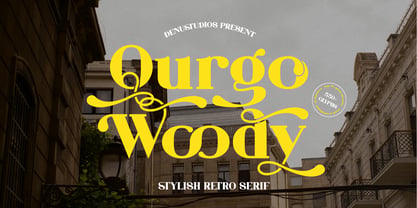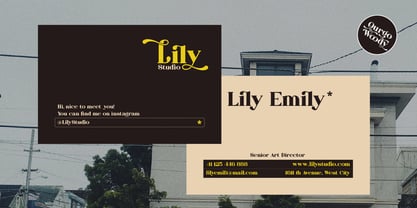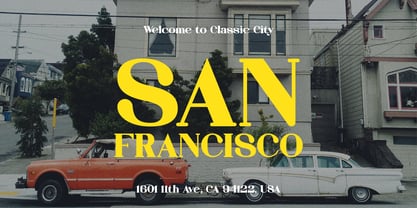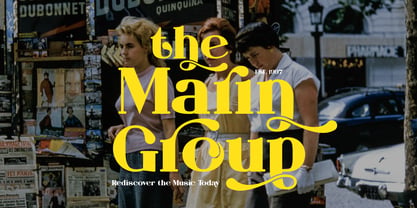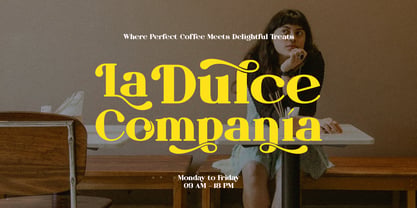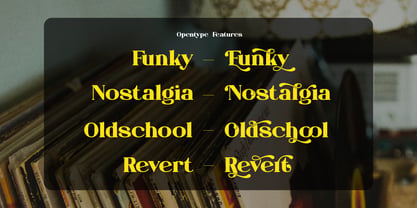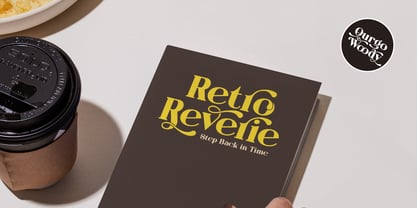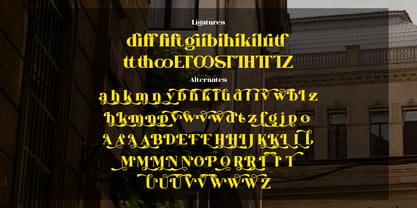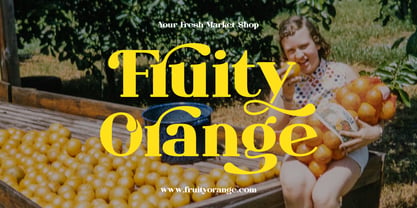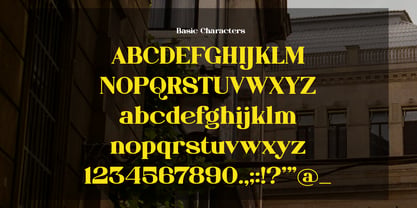
Qurgo Woody
by Denustudio
The Qurgo Woody Font Family was designed by Dede Nugraha and published by Denustudio. Qurgo Woody contains 2 styles and family package options. More about this family
Qurgo Woody | Stylish Retro Serif, from Denustudios, suitable for any projects such as: logos, branding projects, homeware designs, product packaging, mugs, quotes, posters, shopping bags, t-shirts, book covers, name card, invitation cards, greeting cards, label, photography, watermark, special events, and all your other lovely projects that need a Stylish Retro Serif taste.
• Regular and Italic
• Alternate and Ligature